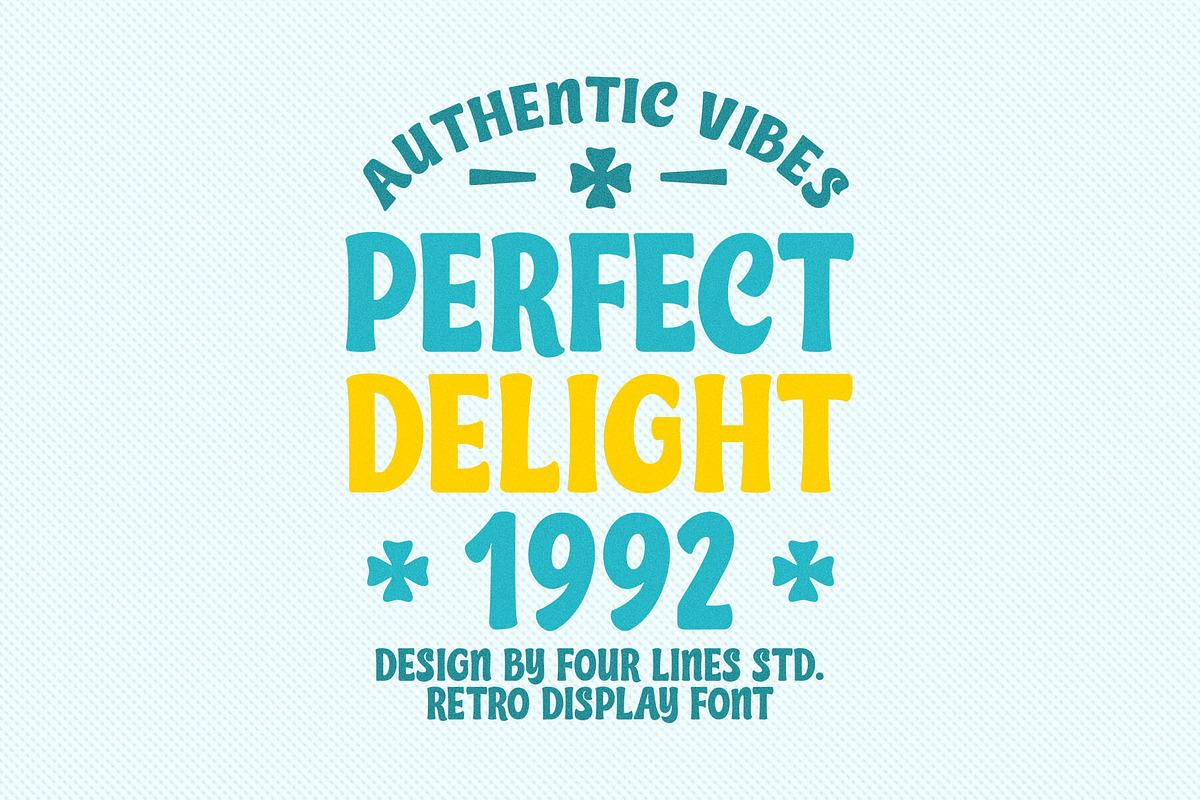
Perfect Delight 1992 - Retro Display Font Free Download is a bold, nostalgic typeface inspired by vintage aesthetics and classic '90s style. With its chunky letterforms, playful curves, and upbeat energy, this font is ideal for retro-themed posters, apparel design, product packaging, music artwork, and eye-catching social media content. It’s designed to turn heads and bring that perfect throwback feel to your creative work.
Using the Perfect Delight 1992 - Retro Display Font Free Download lets you add instant retro charm to any project. Whether you're aiming for a funky, fun vibe or a pop-culture-inspired look, this font gives your designs character and flair. It’s also highly legible, making it as functional as it is stylish.